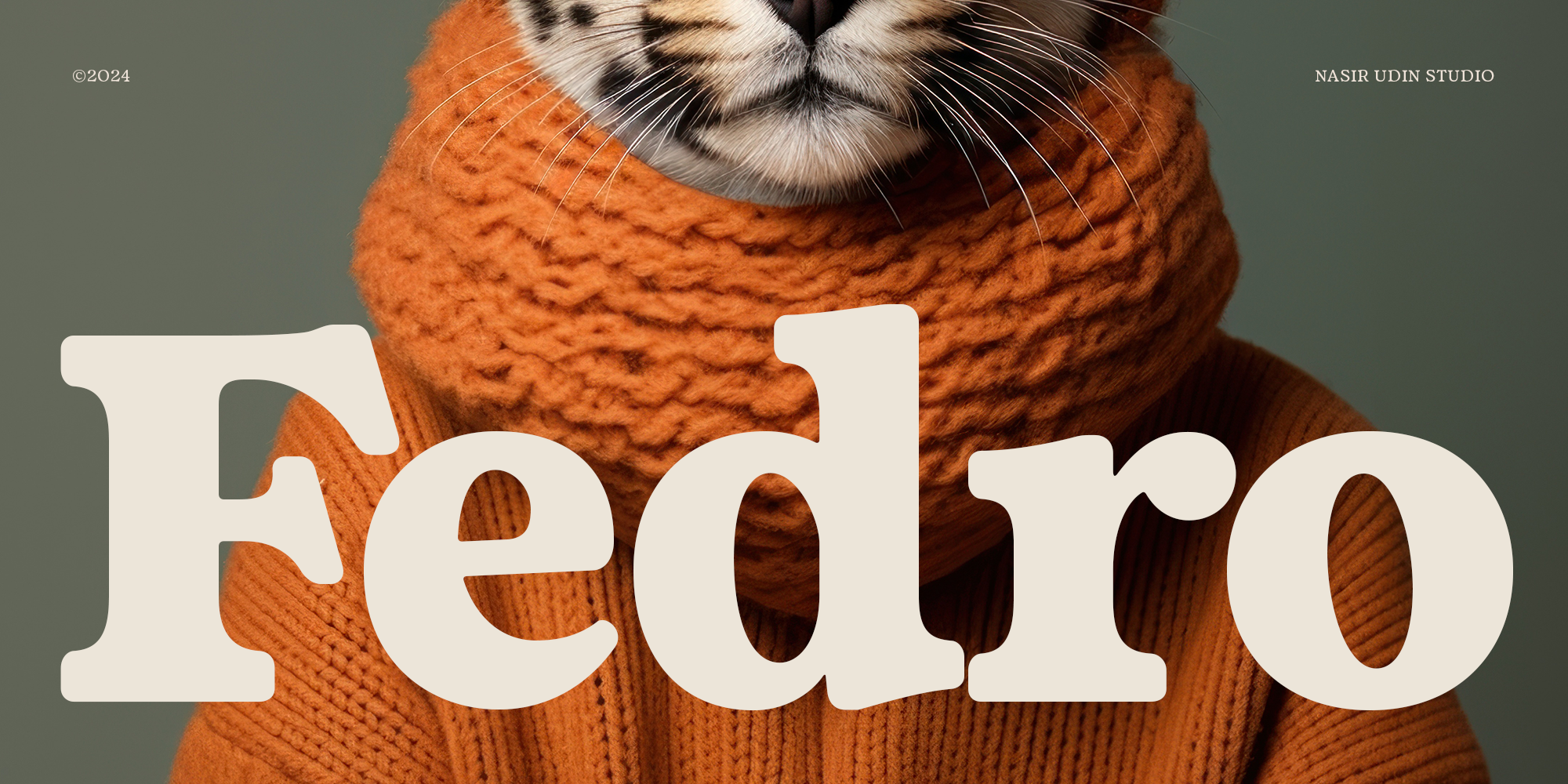
Fedro Font is perfect for classical theater programs, ancient Greek cultural events, philosophical publication covers, academic humanities materials, classical literature reproductions, museum exhibition catalogs, scholarly symposium graphics, ancient history documentaries, cultural heritage presentations, and prestigious educational institution communications. This distinguished typeface excels in applications where classical wisdom and scholarly tradition need to be communicated with academic authority and timeless intellectual elegance that embodies the essence of ancient philosophical thought and the enduring legacy found in classical Greek intellectual traditions and scholarly discourse.
What makes Fedro Font exciting is its remarkable ability to channel the intellectual gravitas and philosophical depth of ancient Greek wisdom through its thoughtfully crafted letterforms that seem to carry the weight of centuries of classical thought and scholarly tradition. The font embodies the spirit of philosophical inquiry with its balanced construction and academically refined proportions that suggest the systematic reasoning and intellectual rigor that characterizes serious scholarly work and classical academic discourse. Its carefully considered character details and scholarly personality create an atmosphere of intellectual distinction that resonates with academics, philosophers, and cultural institutions who understand the profound importance of preserving and celebrating the rich intellectual heritage of classical antiquity and philosophical tradition.
The Fedro Font family typically includes Light, Regular, Medium, and Bold weights, each maintaining the signature classical characteristics and scholarly sophistication. Some versions offer traditional Greek character support, alternative elements inspired by ancient inscriptions, and specialized variants optimized for academic publications and cultural exhibitions. The family may also include Small Caps for hierarchical academic text and display cuts designed for maximum scholarly impact in educational and cultural applications requiring authentic classical credibility and intellectual authority.
Whether you're creating academic publications, classical cultural materials, or scholarly communications, Fedro Font Free Download delivers the perfect intellectual authority your classically-focused projects deserve. Its philosophical character and scholarly styling make it an invaluable choice for universities, cultural institutions, and academic publishers working in classical studies, philosophical research, and cultural preservation sectors where authentic classical heritage and scholarly credibility are essential for establishing intellectual authority and honoring the timeless wisdom of ancient Greek philosophical tradition and classical academic excellence.